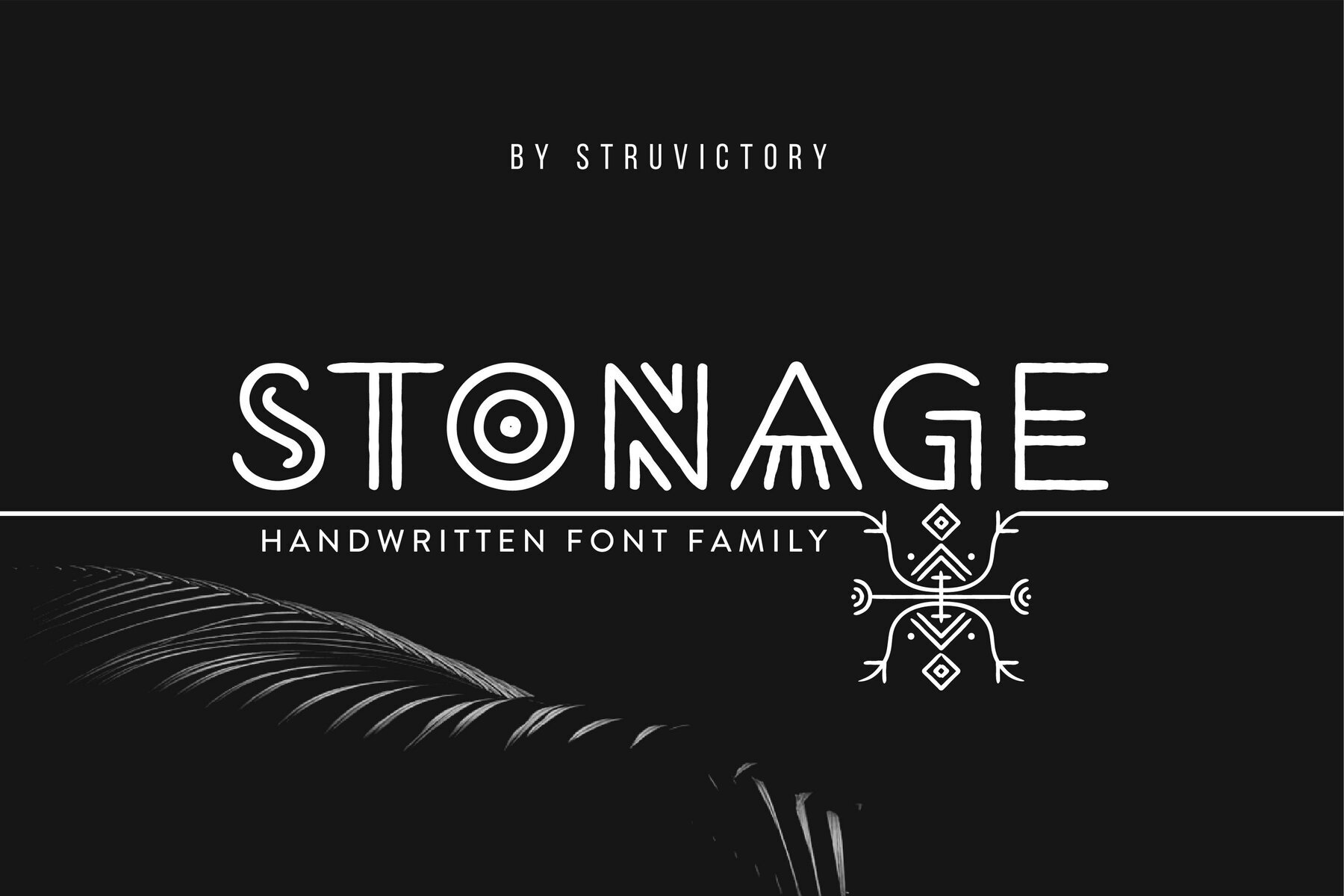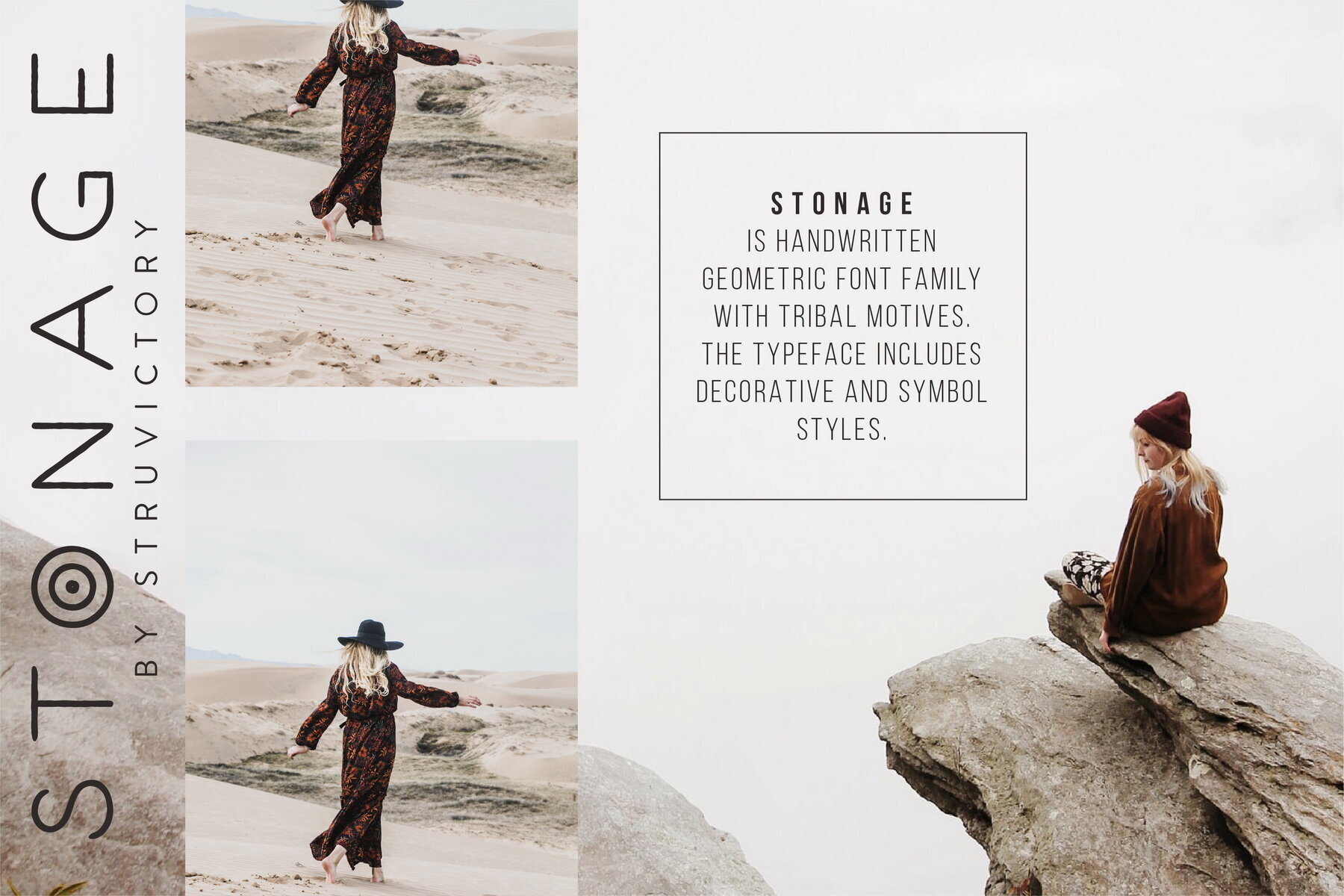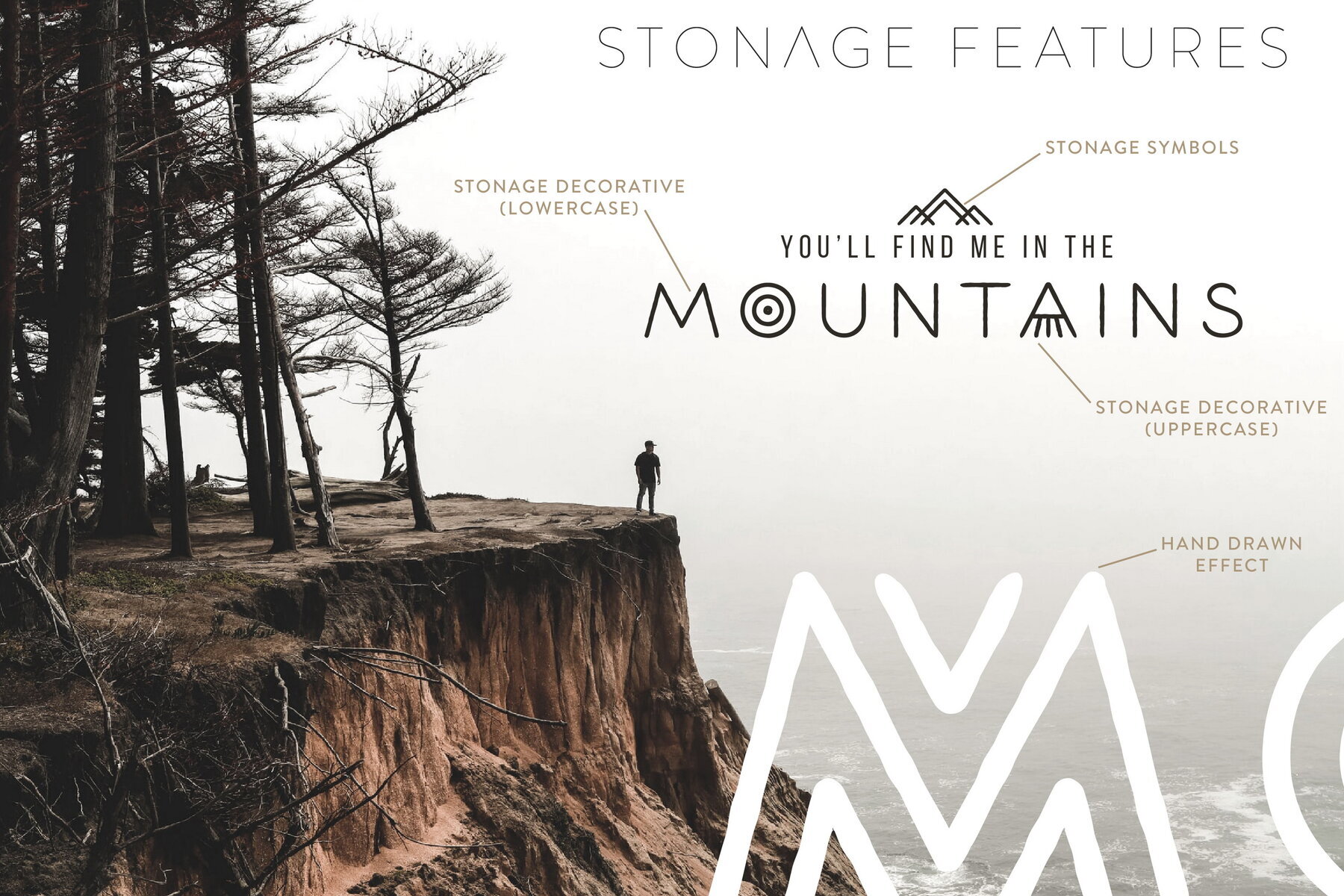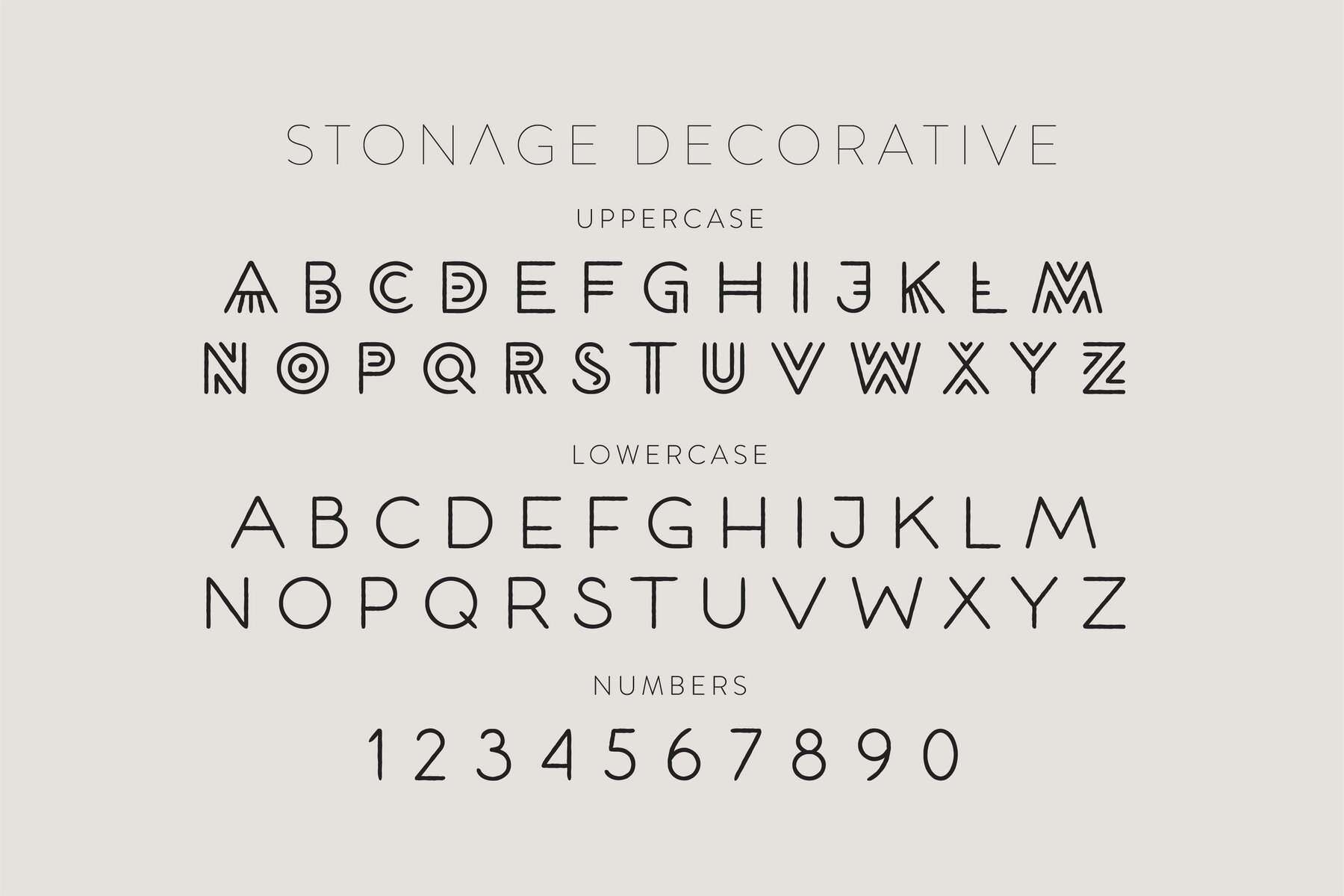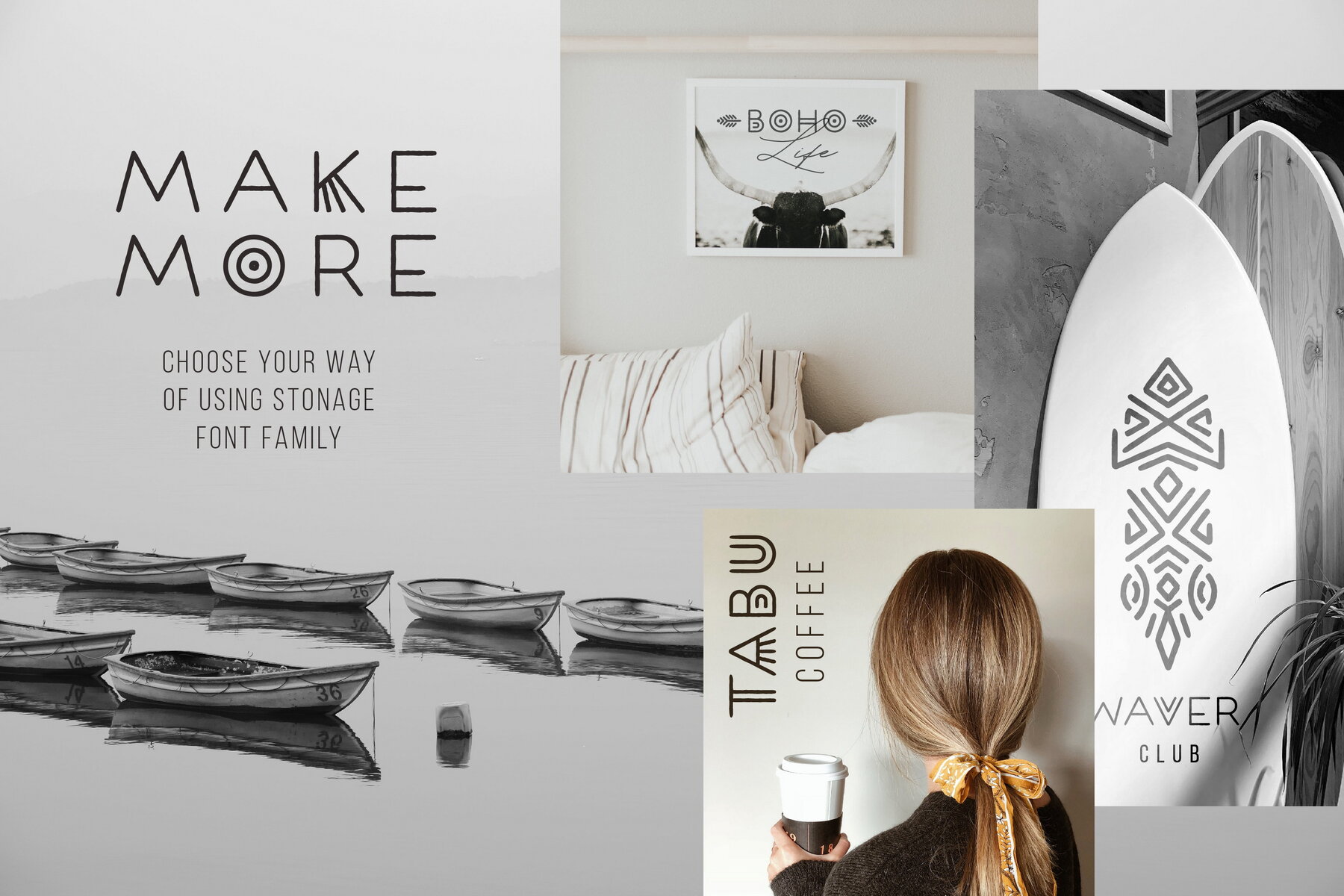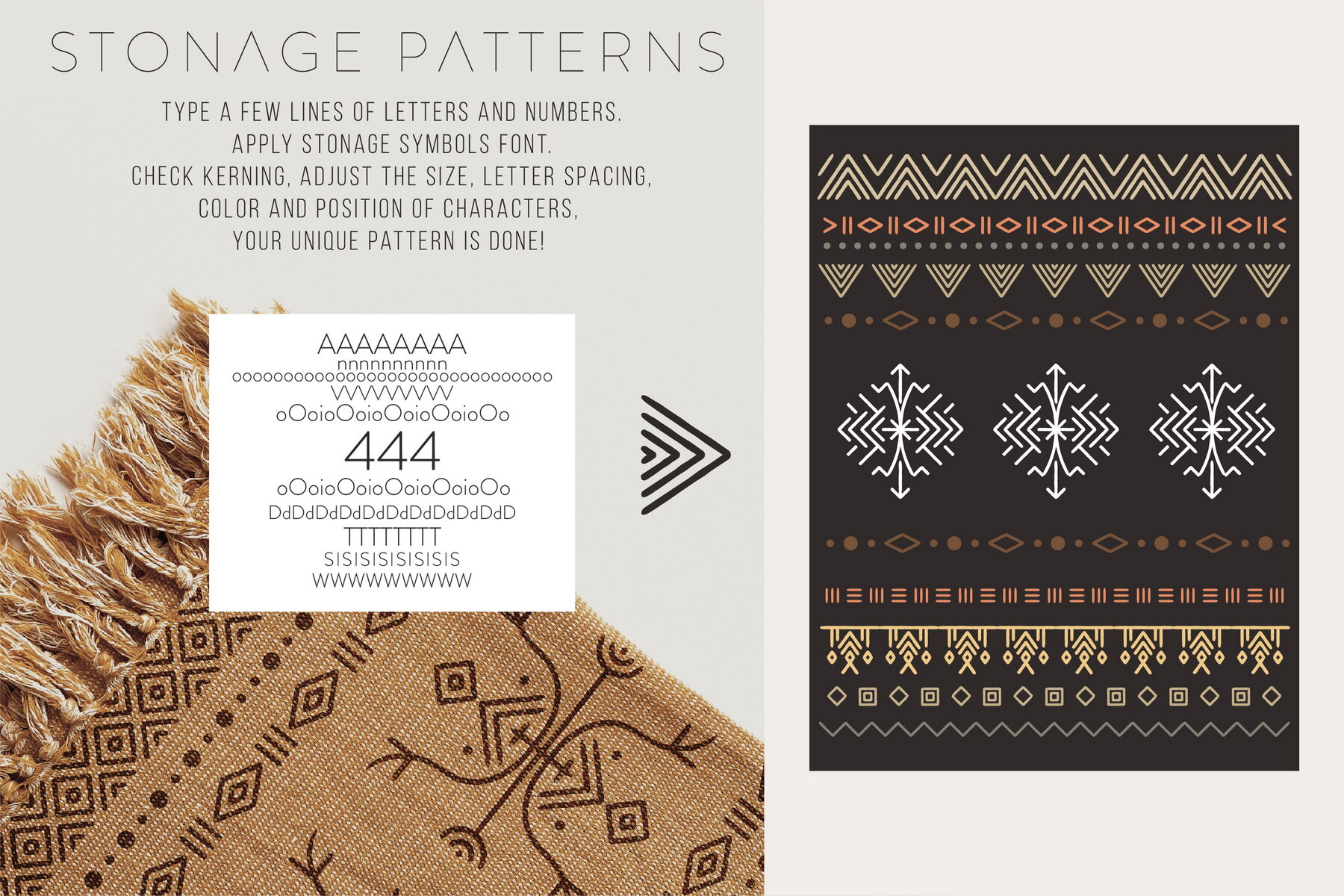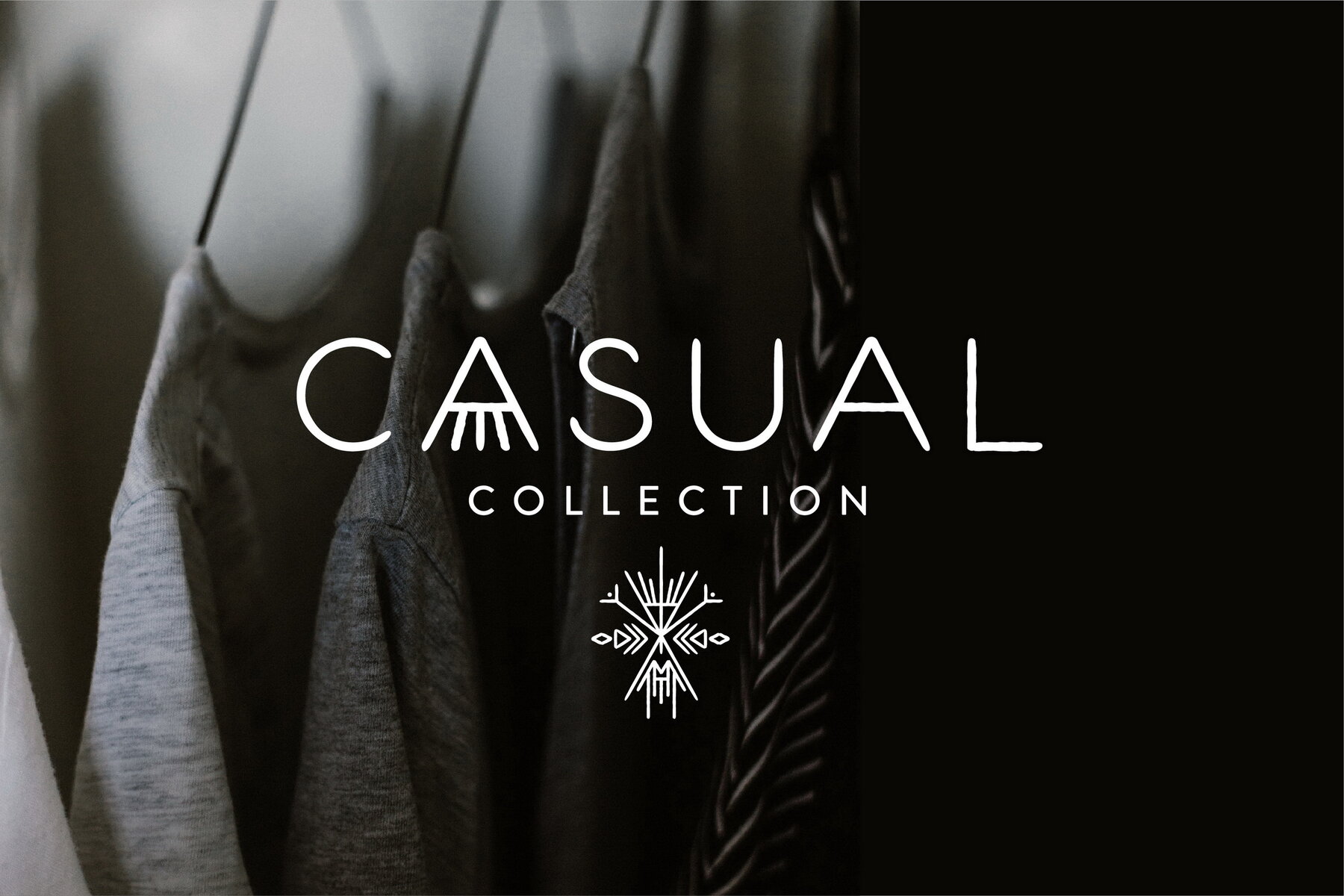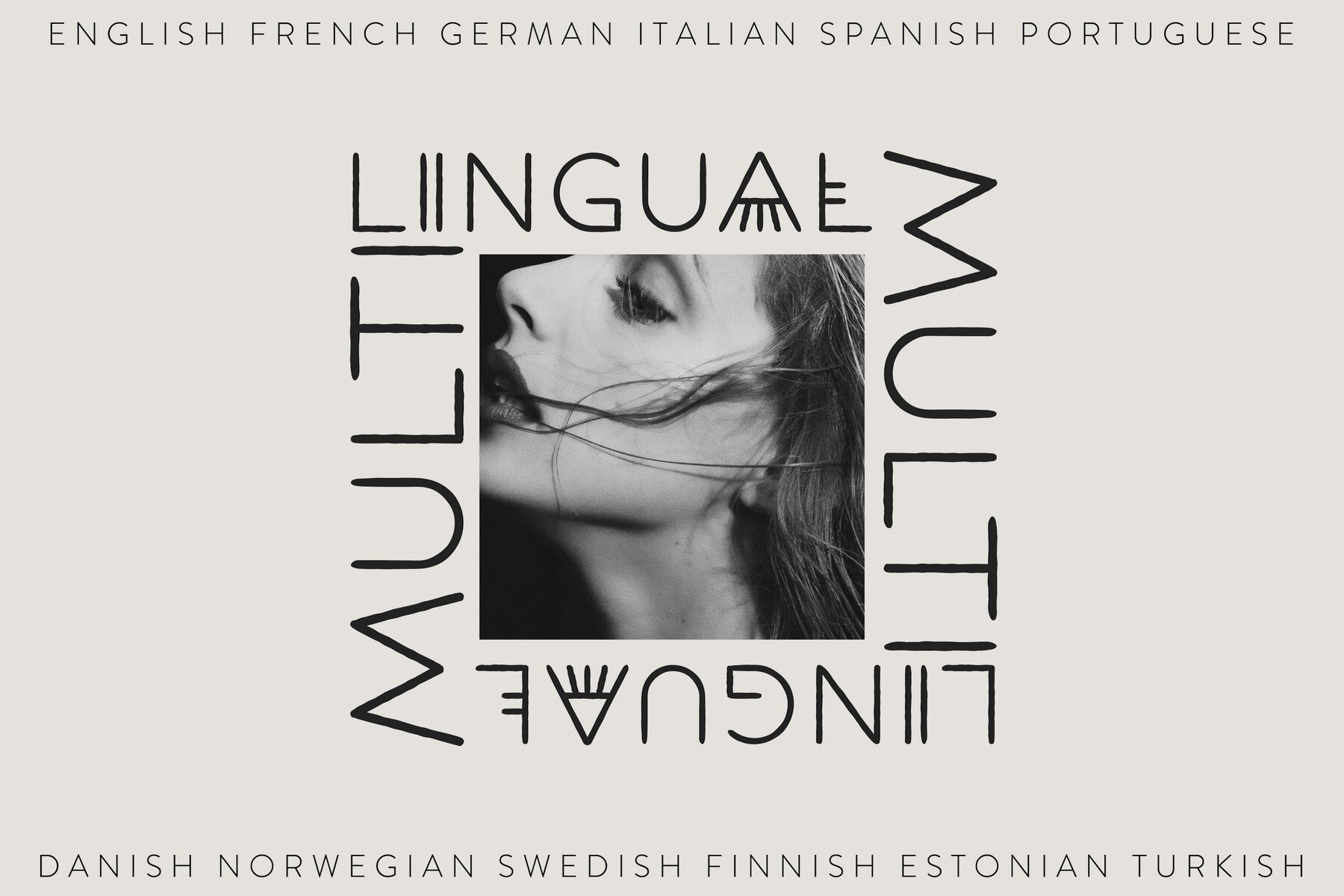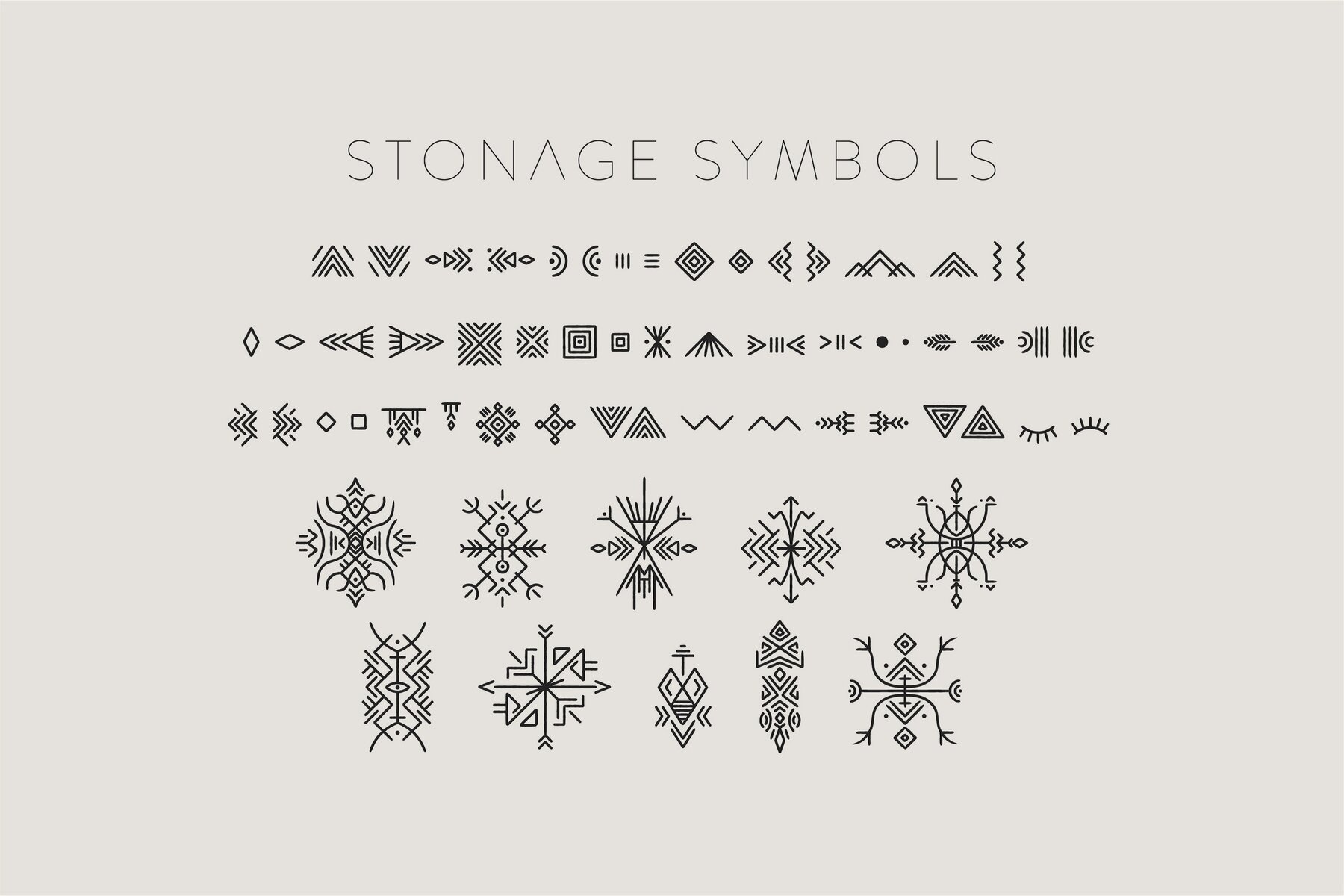
Stonage Font
Stonage Decorative
Stonage Symbols
Stonage is a minimalistic handwritten typeface that draws inspiration from tribal aesthetics, featuring geometric patterns that enhance its design. The font family offers two versatile styles: Decorative and Symbol. Stonage Decorative showcases thin-lined lowercase letters complemented by ornate uppercase characters. Meanwhile, Stonage Symbols provides unique elements for crafting bespoke tribal-themed patterns.
This font family is ideal for a variety of applications, including branding and packaging of craft products like minimal fashion, needlework, and organic food. It's also well-suited for tourism materials, surface design, music album covers, and typographic posters. With the flexibility to create logos and monograms by combining individual letters and symbols, the creative possibilities are extensive.
The Stonage font family includes the following: Stonage Decorative, Stonage Symbols, and a comprehensive Character Guide. It supports an extensive range of languages, including English, French, German, Italian, Spanish, Portuguese, Danish, Norwegian, Swedish, Finnish, Estonian, and Turkish, making it versatile for global design projects.